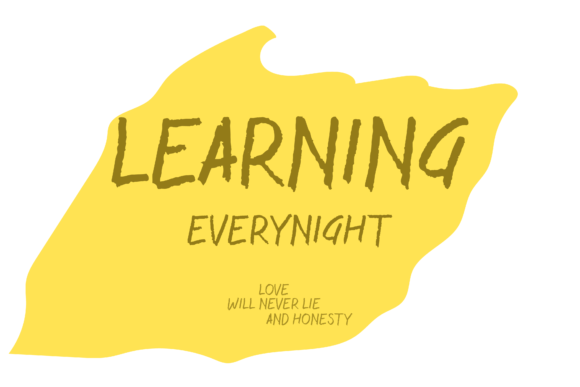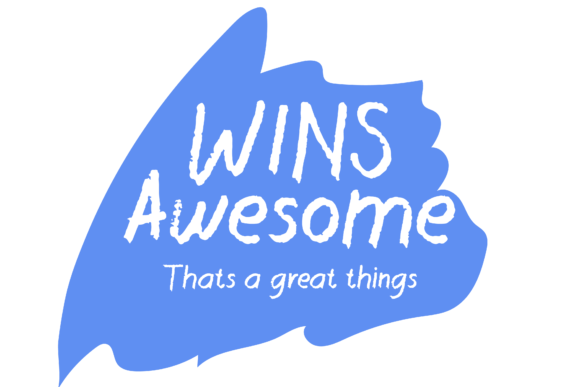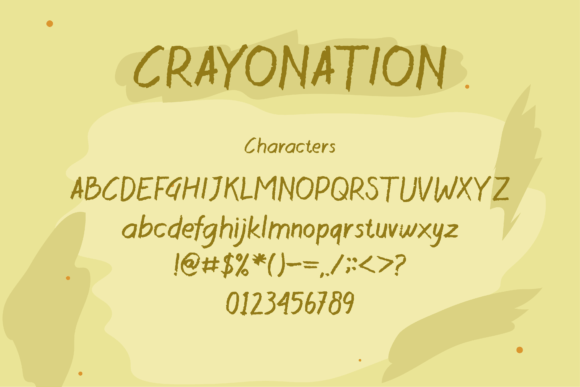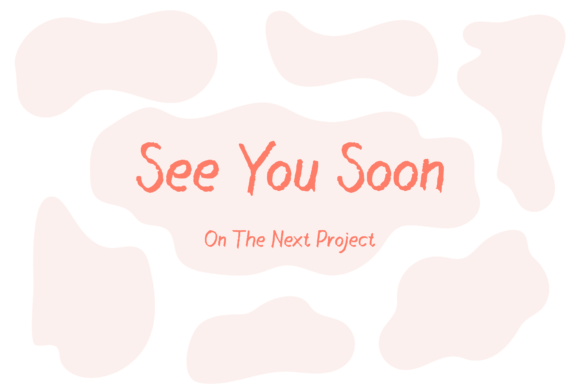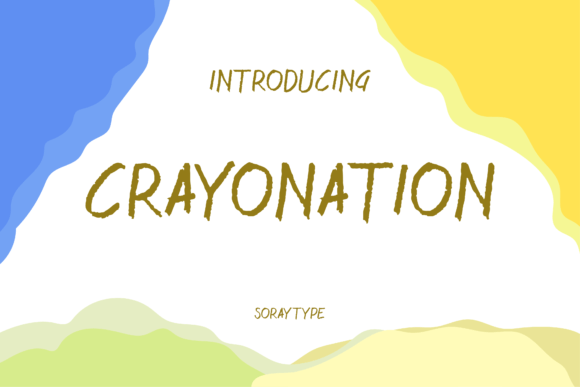
Crayonation Font: The Perfect Brush Font for Your Creative Projects
Are you looking for a unique and creative font to add a personal touch to your design projects? Look no further than Crayonation Font, a beautifully crafted brush font that is perfect for a variety of applications. In this article, we’ll take a closer look at Crayonation Font and explore its many uses, from branding and headlines to cover art and storybooks.
What is Crayonation Font?
Crayonation Font is a brush font that has been carefully created by hand to give it a distinctive, organic feel. The font features bold, expressive strokes that are reminiscent of traditional brush lettering. With its unique character and versatility, Crayonation Font is an excellent choice for designers and crafters looking to add a personal touch to their work.
Uses for Crayonation Font
Crayonation Font is a highly versatile font that can be used in a wide range of creative projects. Here are just a few examples of how you can use Crayonation Font to enhance your designs:
- Branding: Use Crayonation Font to create a unique and memorable brand identity. The font’s bold, expressive strokes make it perfect for logos, business cards, and other marketing materials.
- Headlines: Add a touch of personality to your headlines with Crayonation Font. The font’s bold, attention-grabbing style makes it perfect for titles, headings, and other prominent text.
- Cover Album: Create a stunning album cover with Crayonation Font. The font’s artistic, expressive style makes it perfect for music albums, EPs, and other music-related projects.
- Cover Movie: Use Crayonation Font to create a captivating movie poster or title sequence. The font’s bold, cinematic style makes it perfect for film and video projects.
- Story Book: Bring your storybook to life with Crayonation Font. The font’s playful, whimsical style makes it perfect for children’s books, comics, and other narrative projects.
Benefits of Using Crayonation Font
So why choose Crayonation Font for your design projects? Here are just a few benefits of using this versatile brush font:
- Unique Character: Crayonation Font has a distinctive, hand-crafted feel that sets it apart from other fonts.
- Versatility: Crayonation Font can be used in a wide range of creative projects, from branding and headlines to cover art and storybooks.
- High-Quality Design: Crayonation Font has been carefully crafted to ensure that it looks great in any context.
Tips for Using Crayonation Font
Here are a few tips for getting the most out of Crayonation Font:
- Experiment with Different Sizes: Crayonation Font looks great in a variety of sizes, from small headlines to large display text.
- Play with Color: Crayonation Font comes in a range of colors, so don’t be afraid to experiment and find the perfect hue for your project.
- Combine with Other Fonts: Crayonation Font pairs well with a range of other fonts, so try combining it with different typefaces to create a unique look.
Crayonation Font is a versatile and creative brush font that is perfect for a wide range of design projects. With its unique character, bold strokes, and ease of use, Crayonation Font is an excellent choice for designers and crafters looking to add a personal touch to their work. Whether you’re creating a brand identity, headline, or storybook, Crayonation Font is sure to make your project stand out.